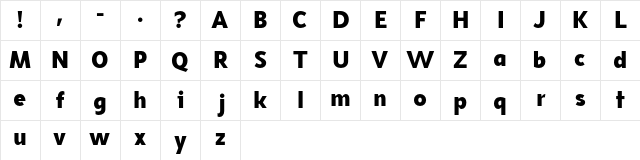
Complete CF Gouble Demo Bold glyph index. Displaying only characters natively supported by CF Gouble Demo Bold font.
CF Gouble Demo is a composed and adaptable typeface that performs quietly and consistently across a wide range of design contexts. Its bold stroke weight gives it real presence on the page.